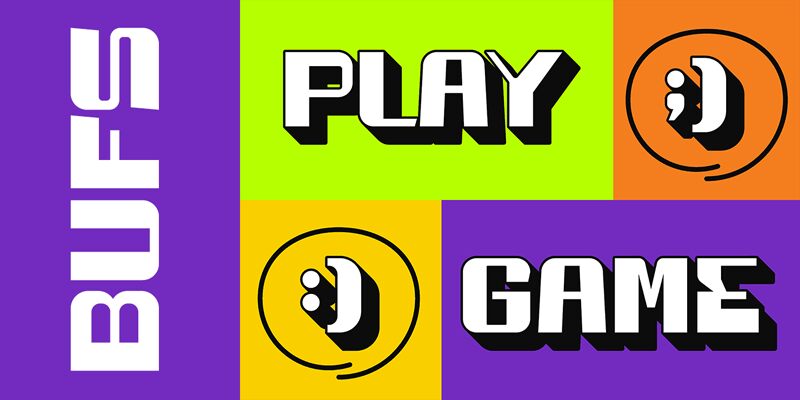
Bufs font, designed by Muhamad Rizky Herdiansyah, is a free font combining blocky and geometric elements. The retro-inspired, groovy letters of this font make their style both modern and attention-grabbing. From 3D effects, bold presence, and high contrast, the typeface can be used stylishly in both print and digital applications.
Bufs will make your gaming design more fun. It also suits tech branding, youth-oriented products, posters, flyers, product packaging, video covers, and more. Retro design lovers will also find it interesting for complementing various similar projects.